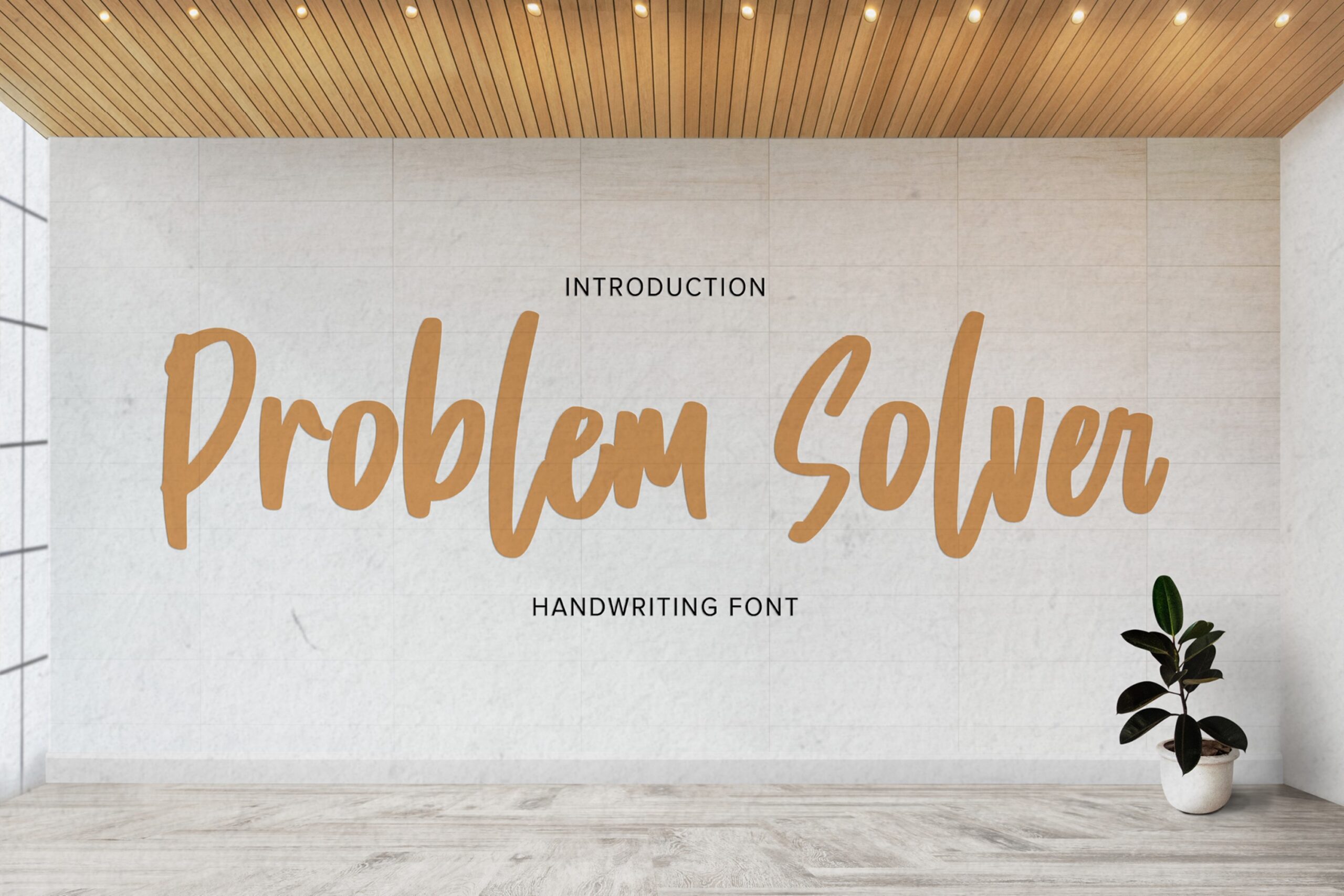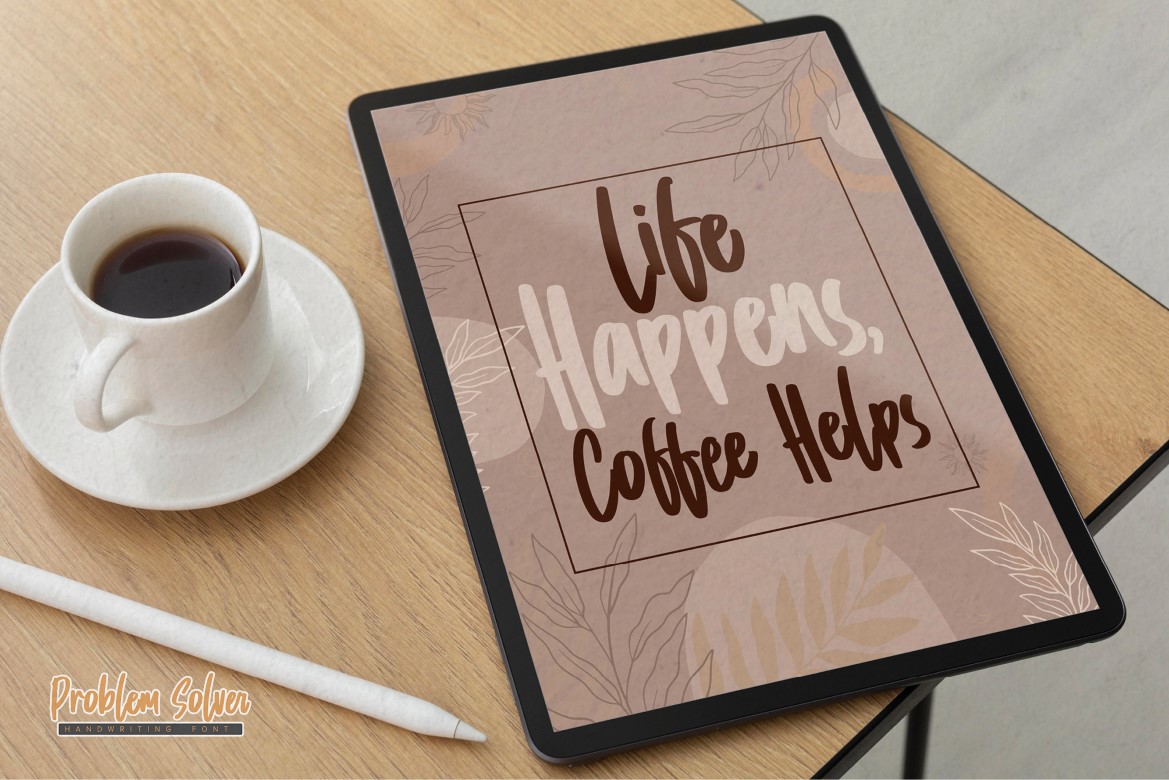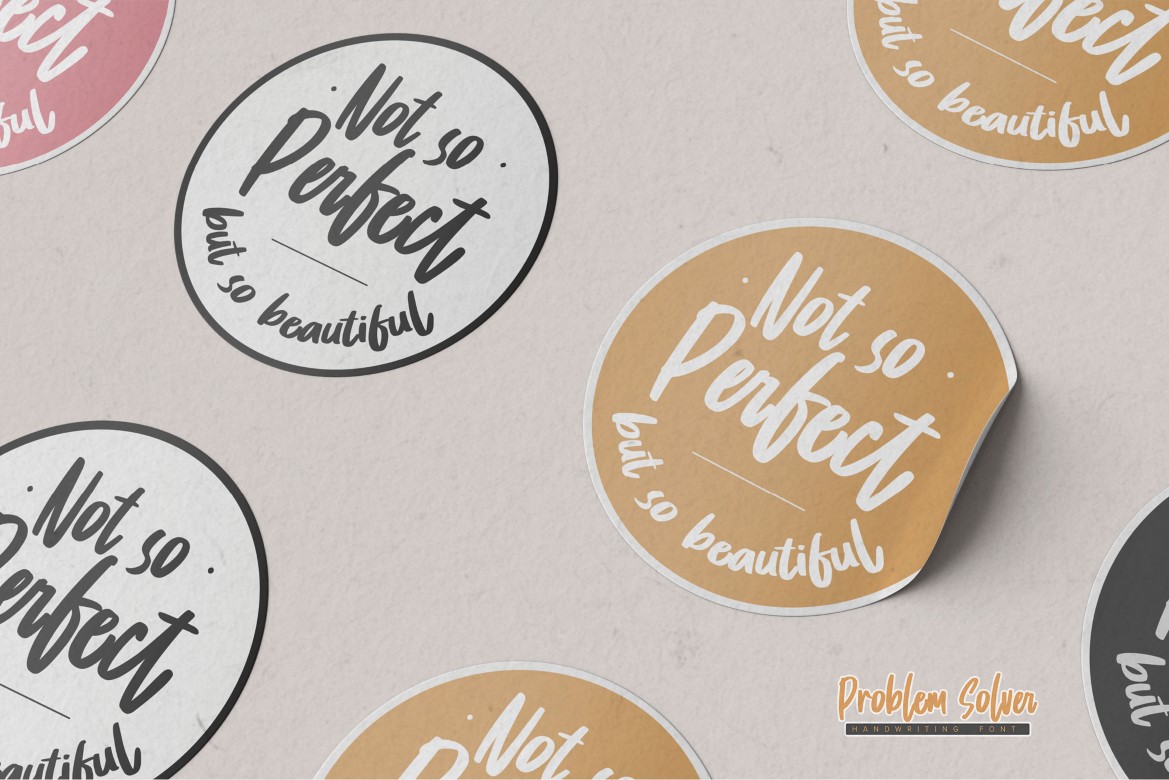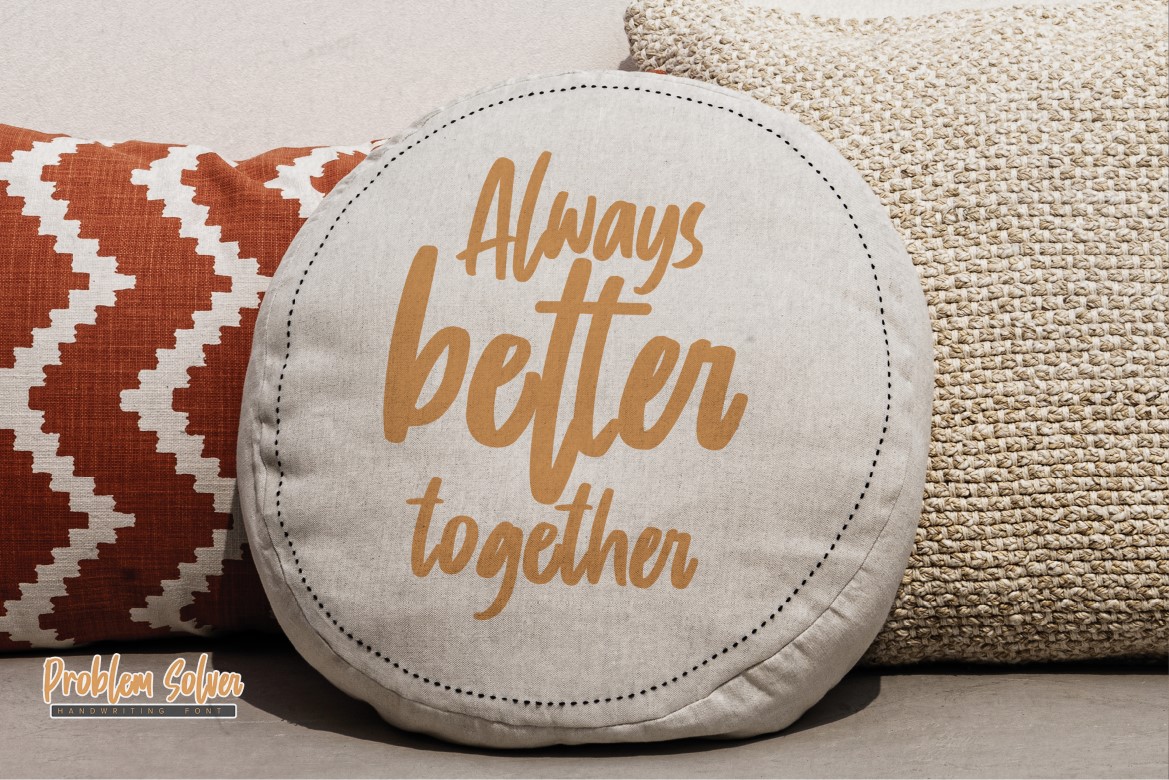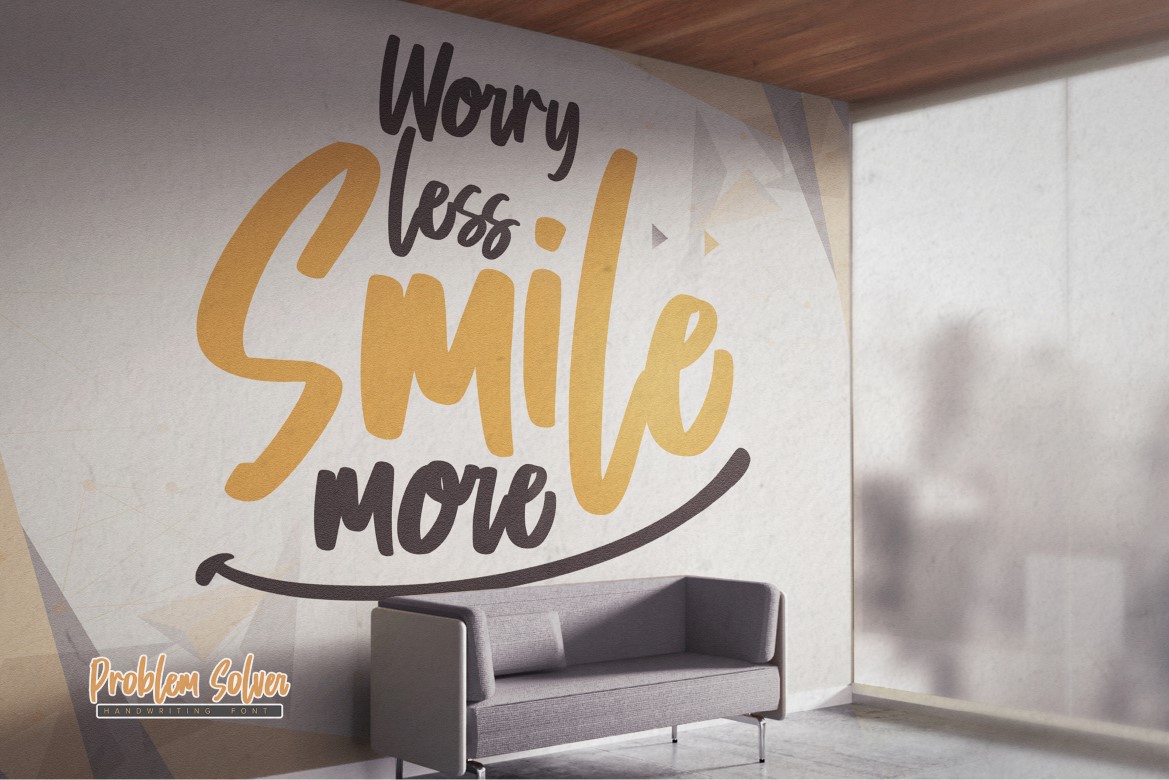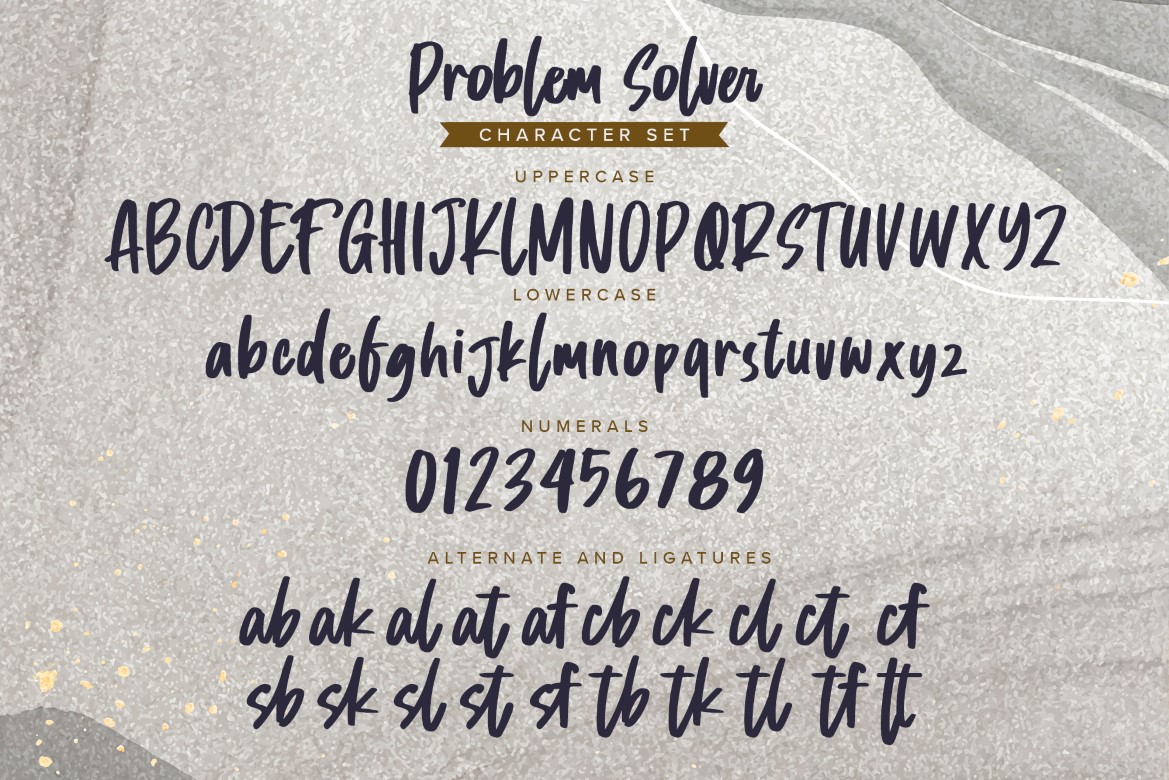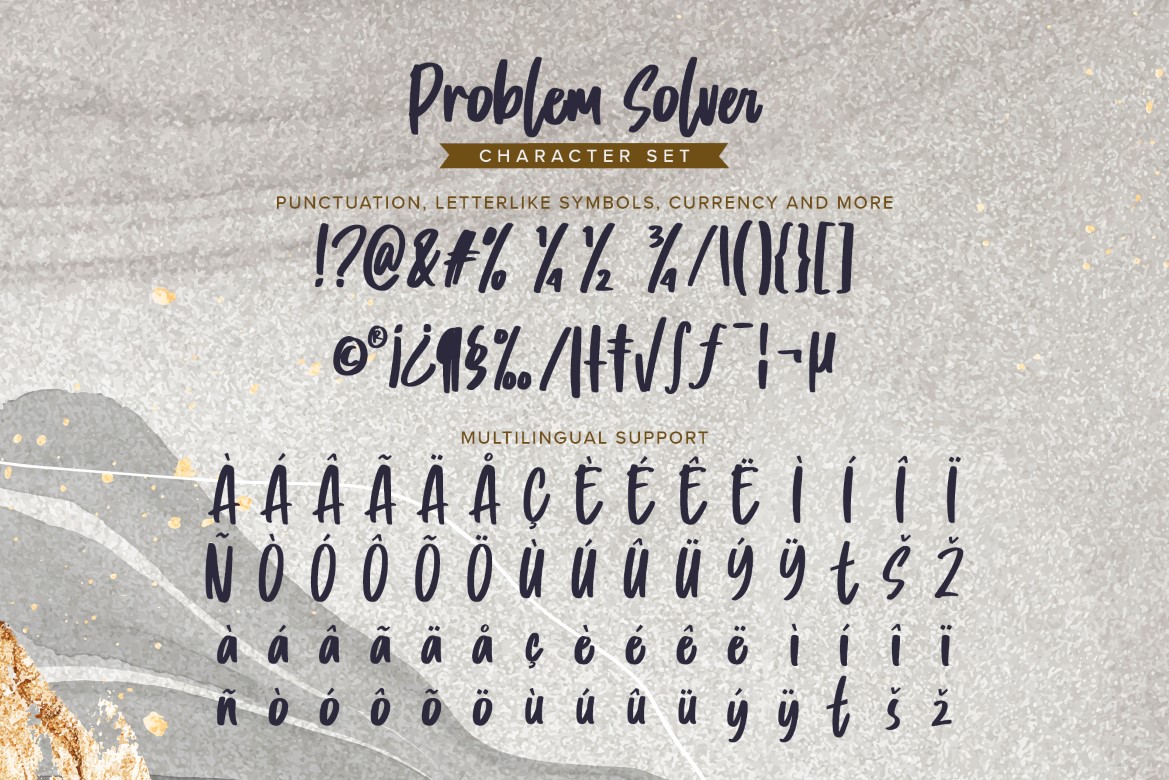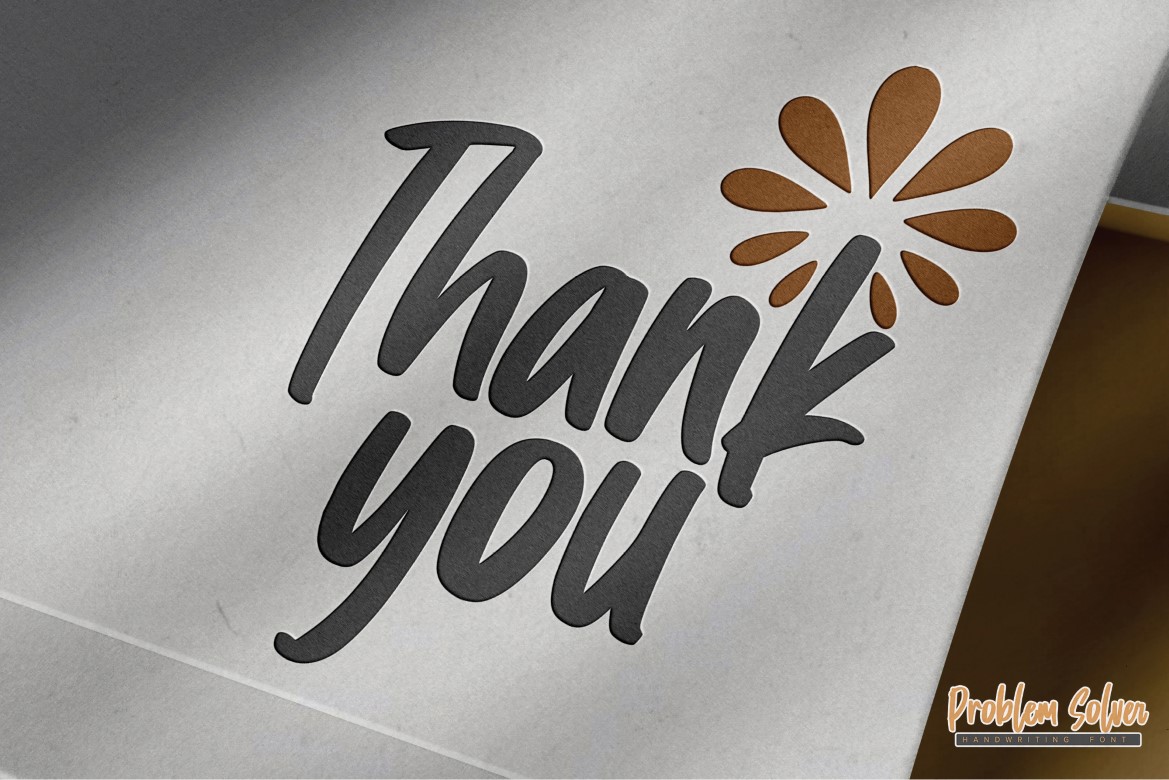
Problem Solver – Handwriting Font ,Playful Craft Font Display Font is an natural that is written casually and quickly.
That is why Problem Solver has a authentic , and strong characteristic more natural look. You can activate Ligatures and Alternates glyphs OpenType panel.
Problem Solver Perfect for designs, branding projects, Logo design,Quotes product packaging and another Project that require cool display font.